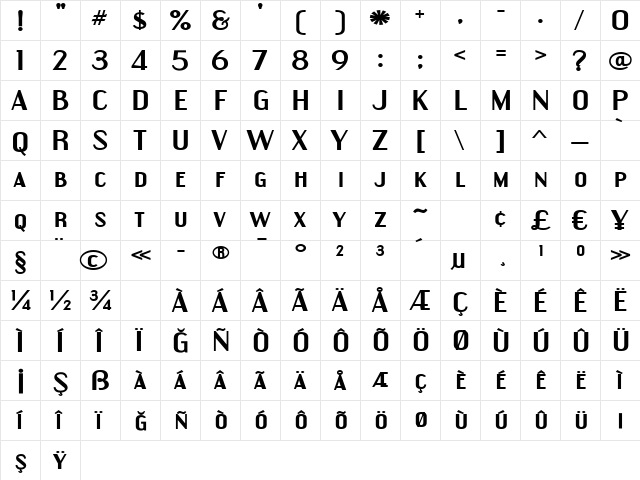
TrSah Engebrechtre Expanded Bold
Design Context for TrSah Engebrechtre Expanded Typeface
TrSah Engebrechtre Expanded is a composed and adaptable typeface that performs quietly and consistently across a wide range of design contexts. Its bold stroke weight gives it real presence on the page.